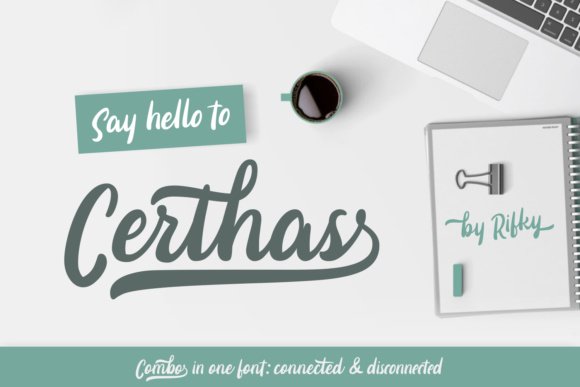
Design Inspiration Strikes
Have you ever been browsing through old photographs or antique shops, and suddenly, a font catches your eye? For some designers, this is a moment of pure inspiration. It’s the spark that sets off a chain reaction of creativity, leading to new ideas and innovative designs. For me, it was a vintage baseball logo that sparked the idea to try something new with the Certhas Font.
This fun and painterly handwritten font is perfect for adding a touch of Americana charm to your projects. With its swashy script, Certhas Font is ideal for use in headlines and titles, adding a playful and nostalgic feel to your designs. As a designer, you’ll love the flexibility and versatility of this font, which can be used in a wide range of creative projects, from branding and advertising to packaging and editorial design.
Certhas Font Key Features
- Unique Characteristics: Designed with a unique blend of modern and vintage elements, featuring a wide range of ligatures and contextual alternates
Certhas Font Review
Overall, I’m quite impressed with the Certhas Font. Here are some aspects where it shines:
- ✨ Unique design: Certhas Font has a distinctive, elegant look that sets it apart from other fonts.
- ✨ Legibility: It’s highly legible even at smaller font sizes, making it suitable for body text.
- ✨ Versatility: Certhas Font works well in both digital and print media.
- ⚠️ Limited character set: The font’s character set is not as extensive as some other fonts, which may be a concern for certain projects.
- ⚠️ Not ideal for headings: While Certhas Font is elegant, it may not be the best choice for headings due to its subtle design.
Overall, I think Certhas Font is a solid choice for designers looking for a unique, legible font. While it may have some limitations, its strengths make it a great addition to any design project.
Tips for Getting the Most Out of Certhas Font
For the best results, use Certhas Font in conjunction with a clean and minimalist design aesthetic. Avoid using it in overly complex or busy designs, as it can get lost. Experiment with different font sizes and styles to create visual interest.
Certhas Font is ideal for:
- Print design and advertising
- Choose a bold or light version of the font to create contrast.
- Experiment with different font sizes to create a sense of depth.
- Combine the font with geometric shapes or abstract forms to add visual interest.
- Pair the font with a bold, contrasting color to make it stand out.
- Use a simple background to let the font take center stage.
- Experiment with different textures or patterns to add depth and visual interest.
- Choose a elegant, cursive version of the font to add a touch of romance.
- Experiment with different font sizes and arrangements to create a sense of hierarchy.
- Combine the font with delicate illustrations or watercolor elements to add a whimsical touch.
- Pair the font with a soft, pastel color to create a romantic atmosphere.
What is the optimal font size for the Certhas Font?
The optimal font size for the Certhas Font depends on the intended use and the desired level of readability. However, a general guideline is to use font sizes between 12 and 24 points for body text, and 48 to 72 points for headings. This will ensure that the font remains legible and visually appealing.
What is the recommended line height for the Certhas Font?
The recommended line height for the Certhas Font is 1.2 to 1.5 times the font size. This will provide sufficient space between lines of text and improve readability. For example, if you are using a 14-point font size, the line height should be between 16.8 and 21 points.
Create a modern art print featuring the Certhas Font as the primary design element. The font’s unique blend of serif and sans-serif styles makes it perfect for creating visually striking art pieces.
Project 2: Typographic Wedding Invitation
Create a beautiful typographic wedding invitation featuring the Certhas Font as the main attraction. The font’s elegant and sophisticated style makes it perfect for special occasions.